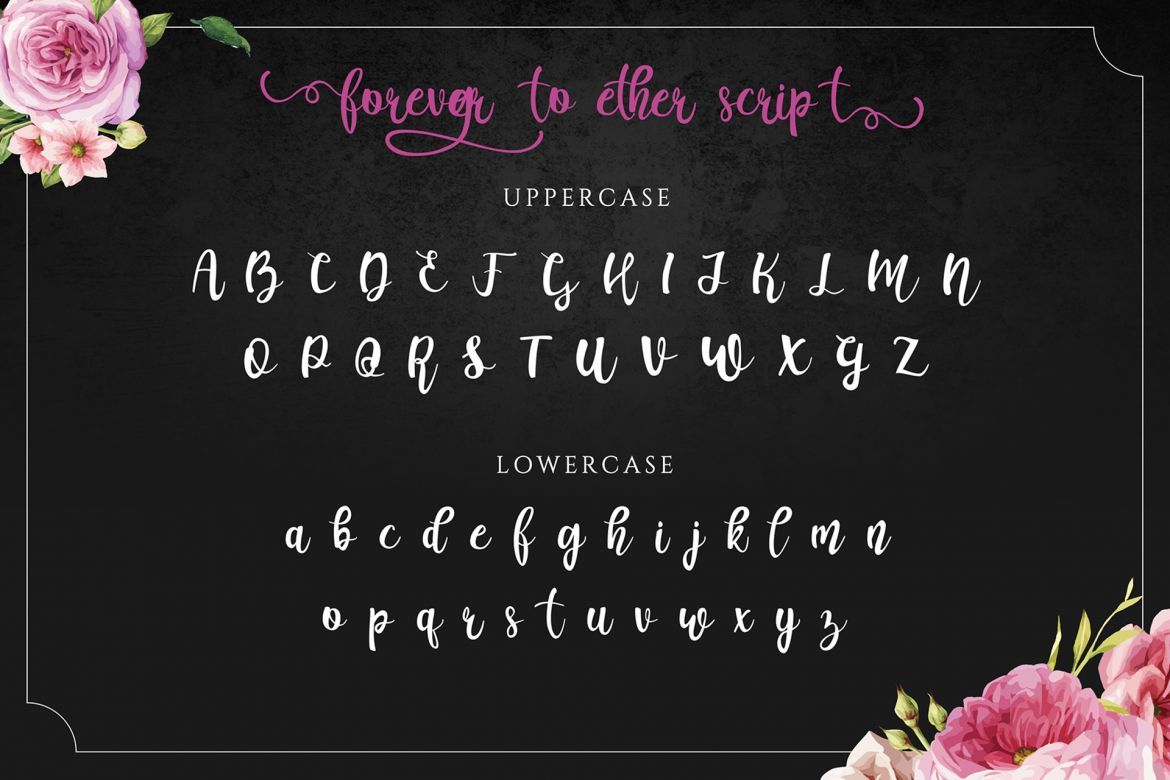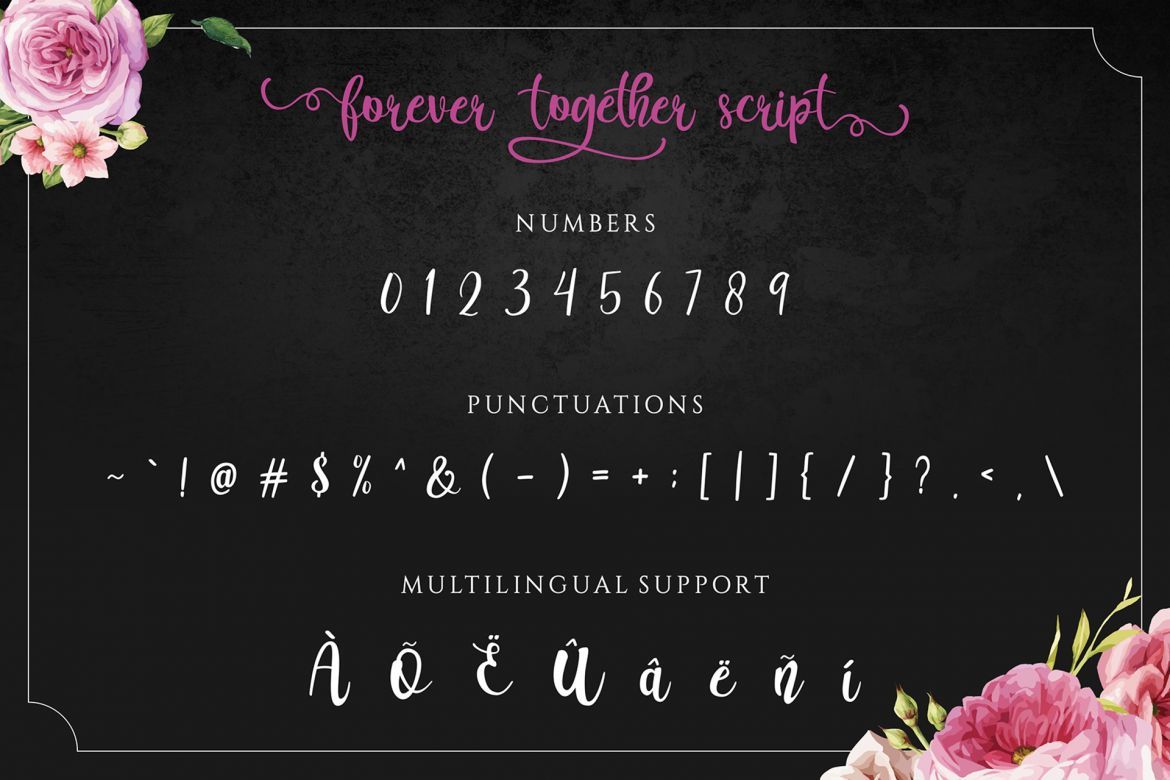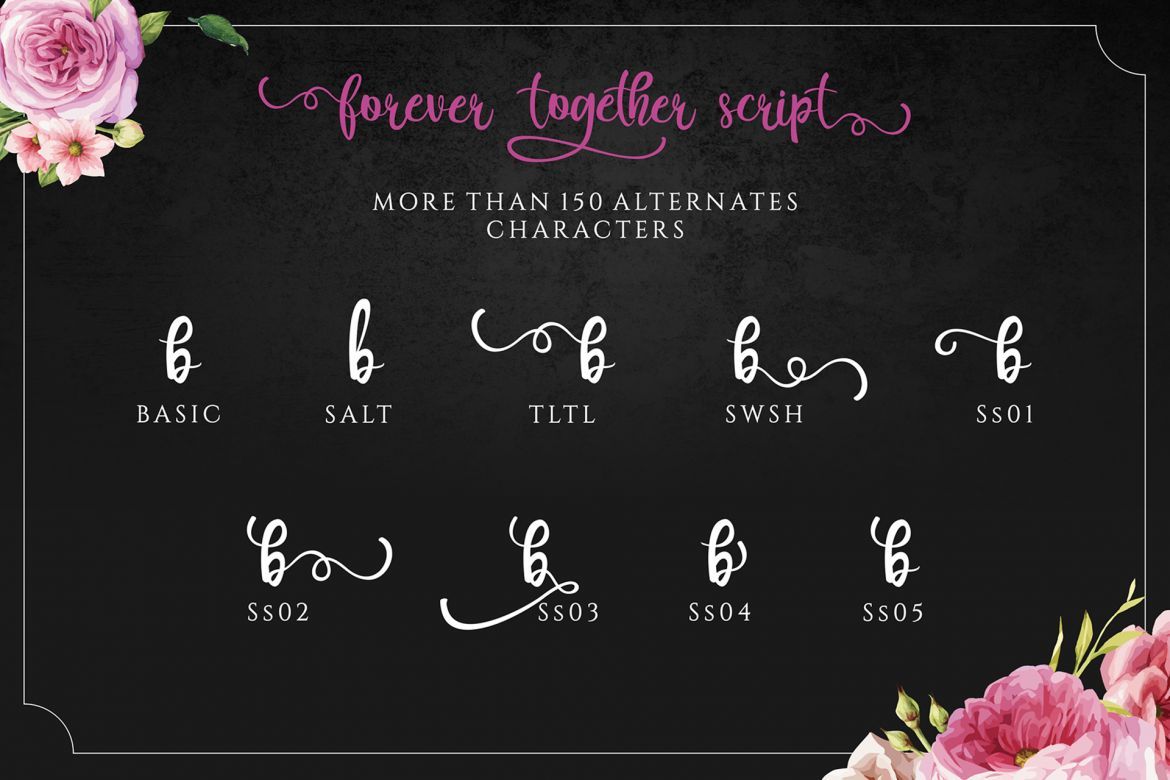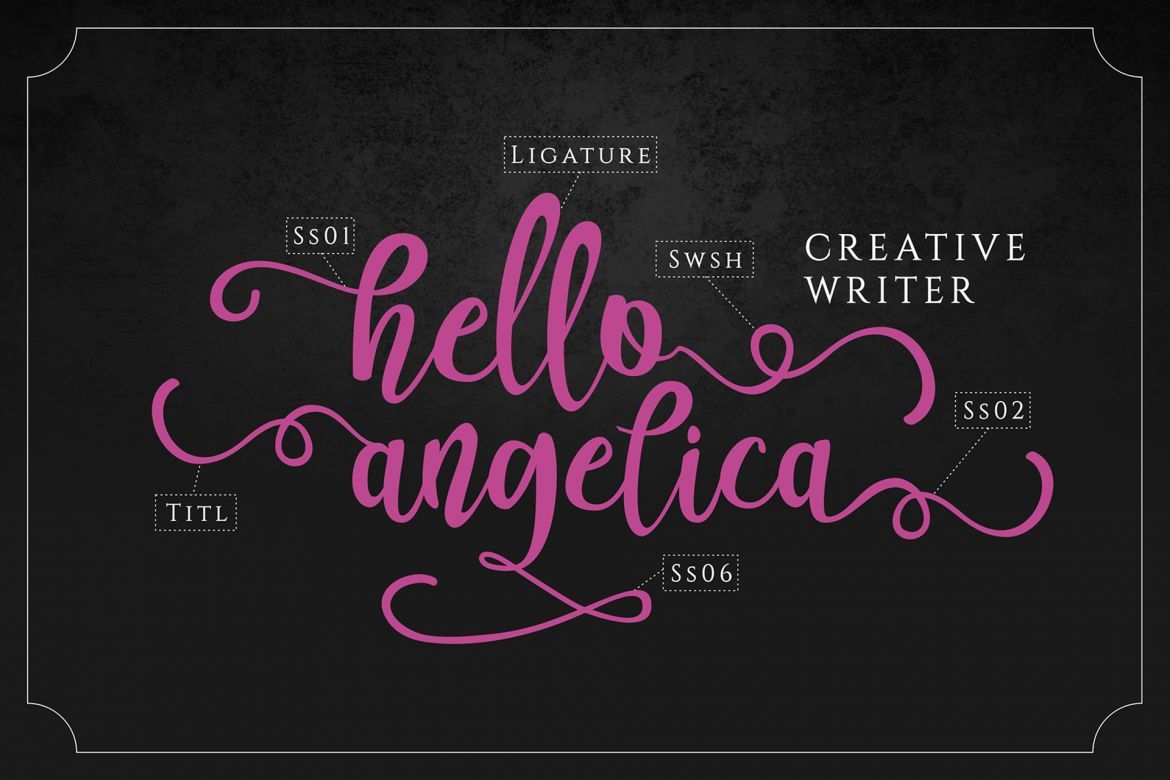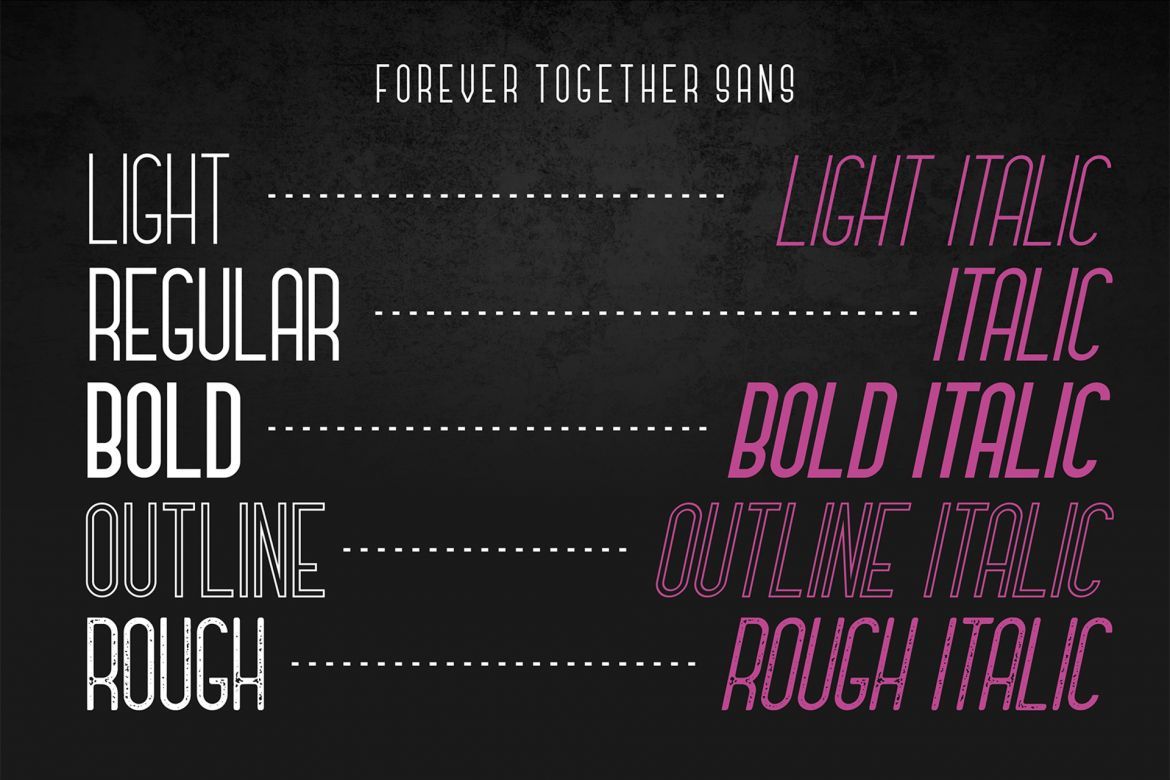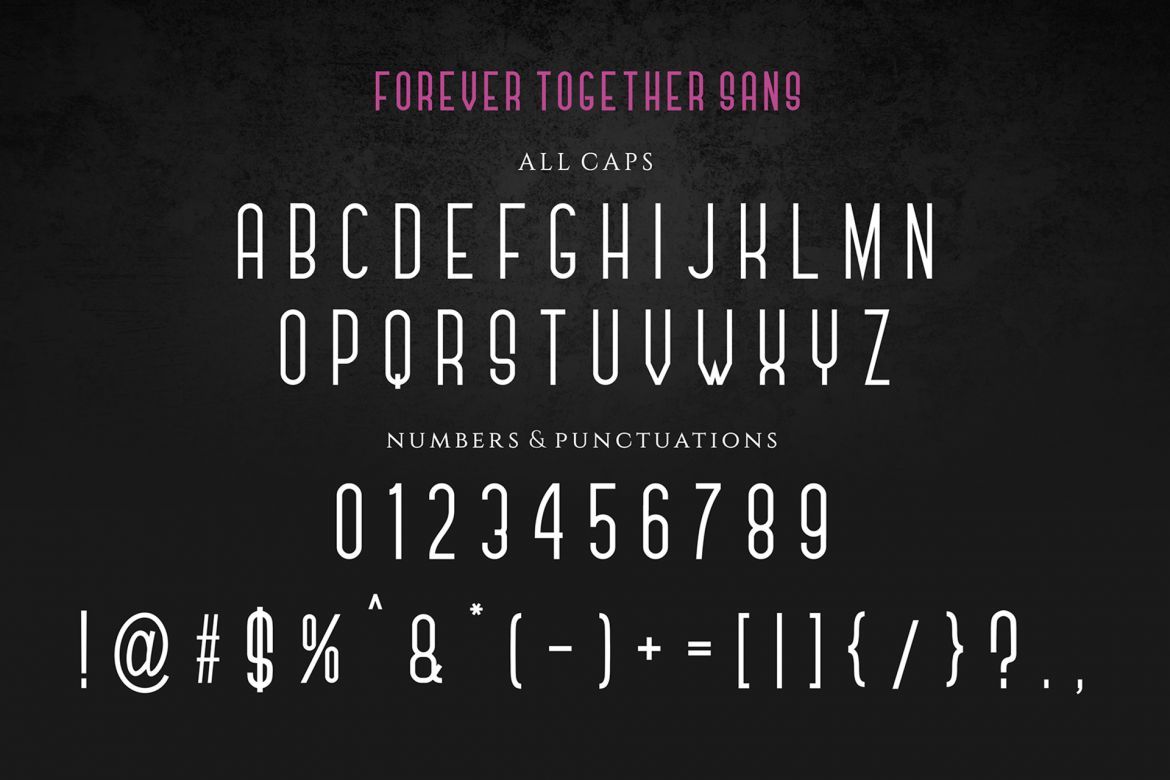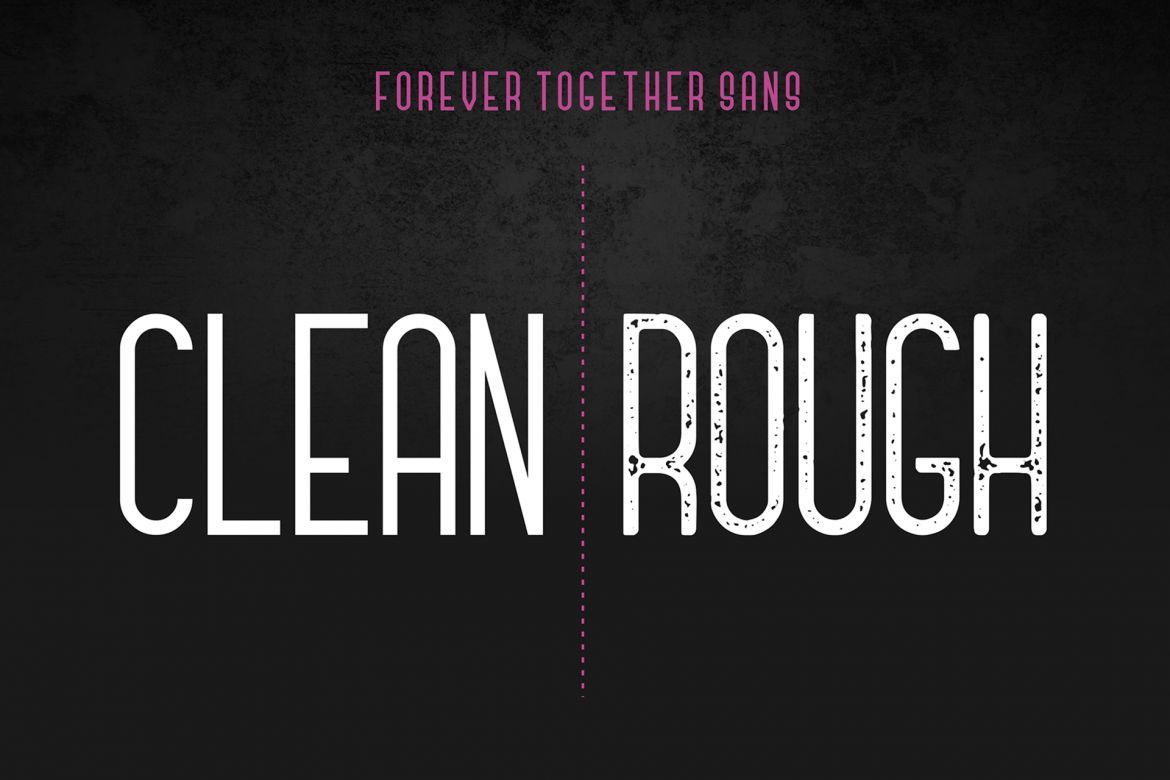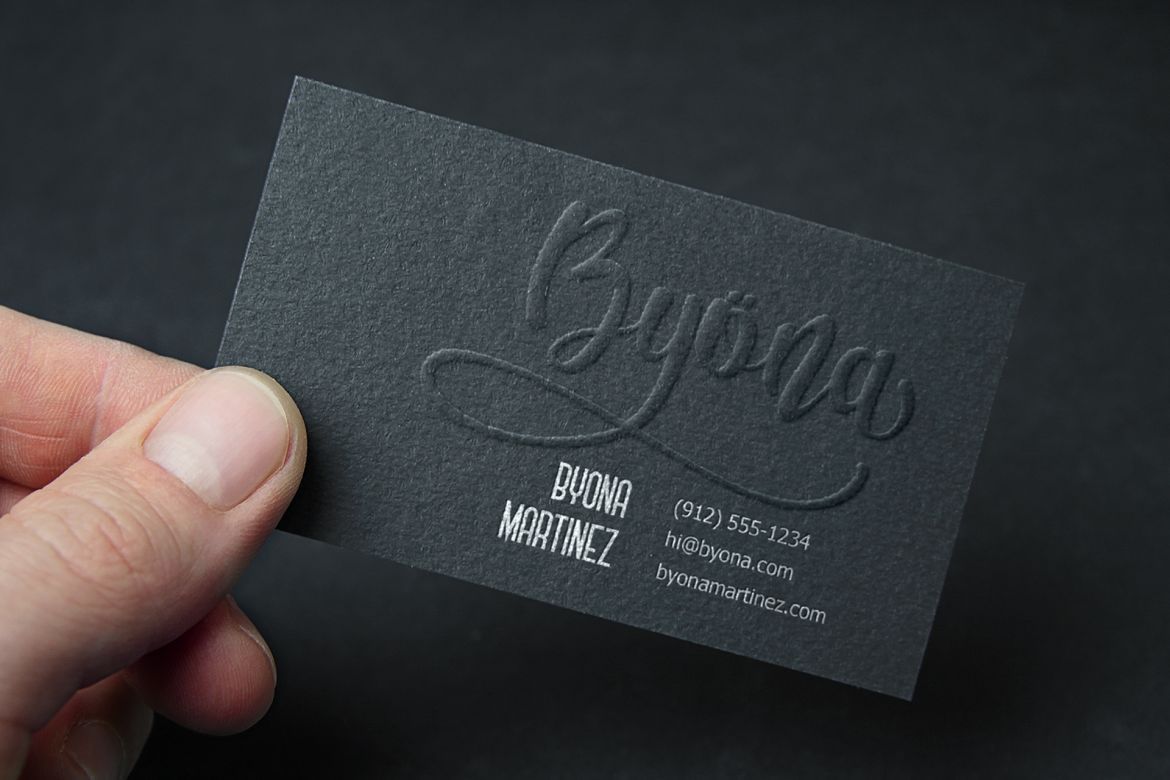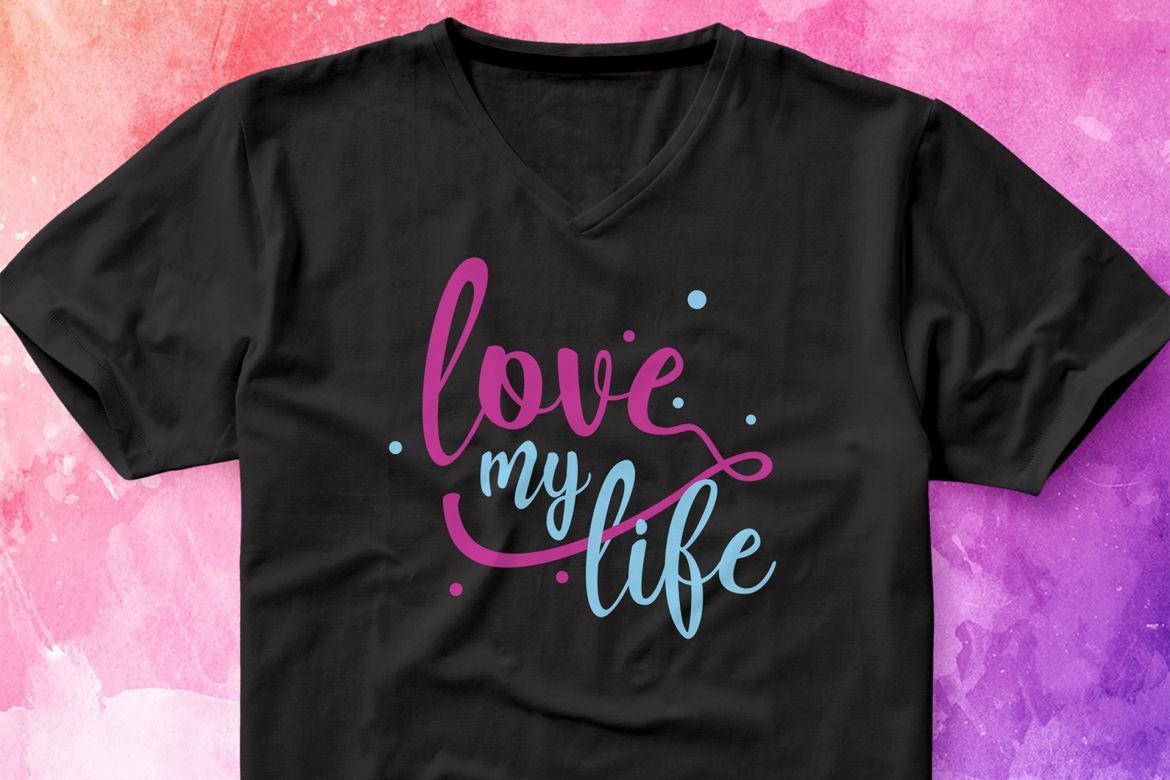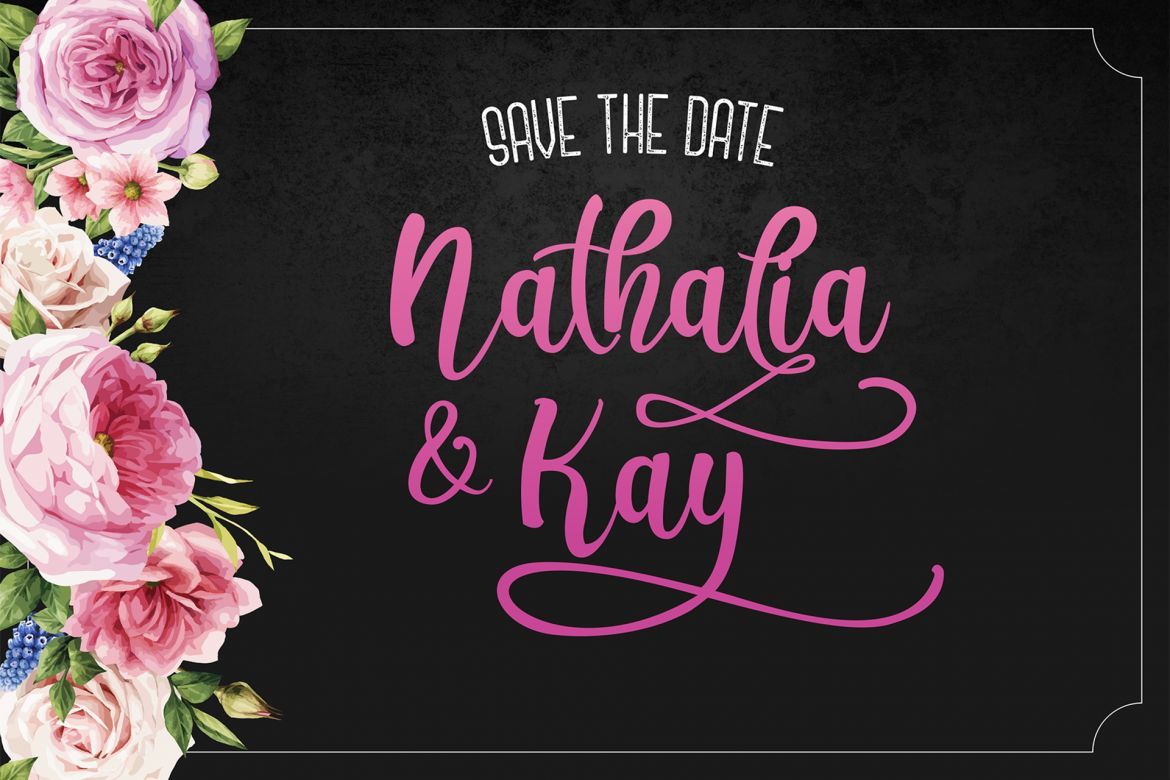
Forever Together Font Duo
This is our newest product called Forever Together. This is a romantic font duo consisting of script fonts and sans serif can be paired with each other. Forever Together comes with Forever Together Script that contains tons of alternates and ligatures, and Forever Together Sans that contain 10 different styles. Forever Together is a really great font for a logo, clothing, wedding invitation, poster, and many others.
HIGHLIGHT :
• Forever Together Script with over 150 alternate (OTF/TTF) - Alternate contains stylistic alternate, swash, stylistic set ss01-ss06, and ligatures
• Forever Together Sans
• Forever Together Sans Italic
• Forever Together Sans Bold
• Forever Together Sans Bold Italic
• Forever Together Sans Light
• Forever Together Sans Light Italic
• Forever Together Sans Outline
• Forever Together Sans Outline Italic
• Forever Together Sans Rough
• Forever Together Sans Rough Italic
• Multilingual support - spread your message globally AÀÁÂÃÄÅCÇDÐEÈÉÊËIÌÍÎÏNÑOØÒÓÔÕÖUÙÜÚÛWYÝŸÆßÞþ
• font duo, script and sans serif
• opentype features & multilingual